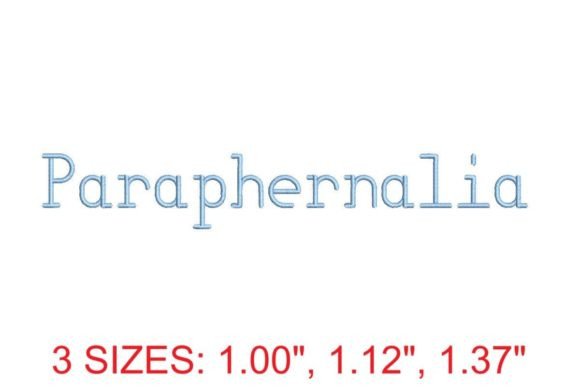
Introducing the Paraphernalia Embroidery Font
The world of embroidery is constantly evolving, and with the rise of digital design tools, creators now have access to a wide array of resources that can elevate their craft. Among these innovations, the Paraphernalia Embroidery Font stands out as a versatile and stylish addition to any embroiderer's toolkit. Whether you're a hobbyist or a professional, this font collection offers something for everyone, making it an essential resource for anyone looking to bring creativity to life through stitching.
Elevating Your Stitching Projects
Embroidery has long been a cherished art form, but the integration of digital fonts has opened new doors for customization and personalization. The Paraphernalia Embroidery Font is designed with both aesthetics and functionality in mind, allowing users to create intricate designs that are both visually appealing and technically sound. From monogramming to custom labels, this font provides a seamless way to incorporate text into your projects without sacrificing quality or precision.
Diverse Lettering Options for Every Project
The Paraphernalia Embroidery Font isn't just about having one style—it's about offering a variety of lettering options to suit different tastes and project needs. From elegant script fonts to bold monograms, each design is crafted to provide flexibility and creativity. This diversity allows users to match their embroidery to the specific theme or purpose of their project, whether it's a wedding invitation, a personalized gift, or a decorative wall hanging.
For example, if you're working on a vintage-inspired piece, the script styles in the font can add a touch of elegance and sophistication. On the other hand, if you're aiming for a more modern or minimalist look, the clean and structured monogram designs offer a perfect solution. This range of options ensures that no matter what your creative vision is, there's a font within the Paraphernalia collection that can help bring it to life.
Practical Benefits for All Skill Levels
What sets the Paraphernalia Embroidery Font apart from other embroidery fonts is its accessibility and usability across different skill levels. Whether you're a beginner exploring the world of embroidery or an experienced designer looking for new inspiration, this font is designed to be user-friendly and adaptable. Its intuitive structure and clear design make it easy to navigate, even for those who are new to digital embroidery.
Seamless Integration into Modern Workflows
Additionally, the font's design allows for easy customization. Users can adjust letter spacing, size, and placement to fit their specific requirements. This level of control is especially valuable for designers who are looking to create unique and personalized pieces that stand out in a competitive market. By combining the font's versatility with its aesthetic appeal, creators can produce high-quality embroidery that meets both artistic and functional goals.
Unlocking a World of Possibilities
With the Paraphernalia Embroidery Font, the possibilities for creativity are truly endless. From adding a personal touch to everyday items like t-shirts and tote bags to creating elaborate designs for special occasions, this font opens up a world of opportunities for both amateurs and professionals alike.
Imagine using the font to create a custom monogram for a client’s wedding dress or a personalized name tag for a boutique. Each project becomes a chance to showcase not only the font's beauty but also the creator's attention to detail and craftsmanship. The font's ability to blend seamlessly with different fabrics and textures further enhances its versatility, making it a go-to choice for a wide range of applications.